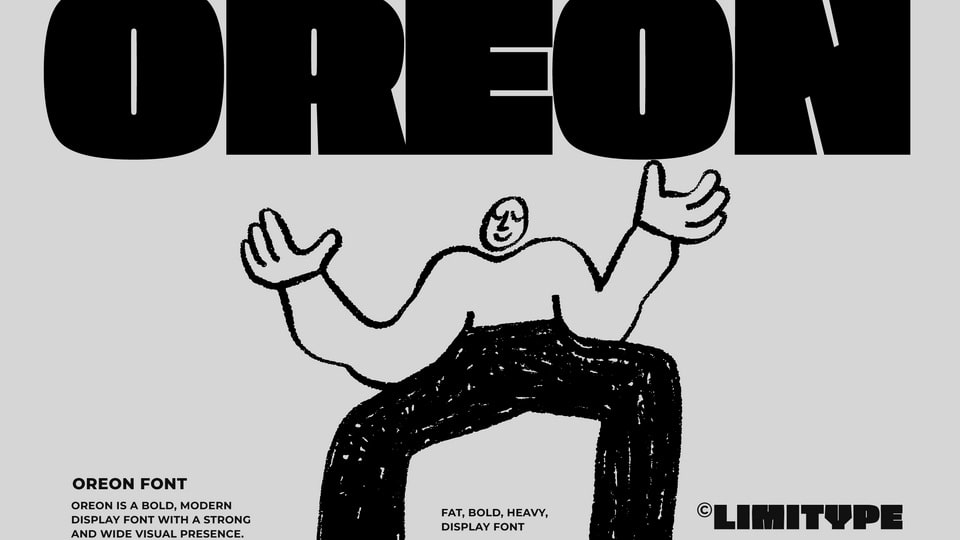
Download Oreon font, a modern display typeface featuring strong, consistent strokes and a wide visual presence, designed to deliver high impact and excellent readability.